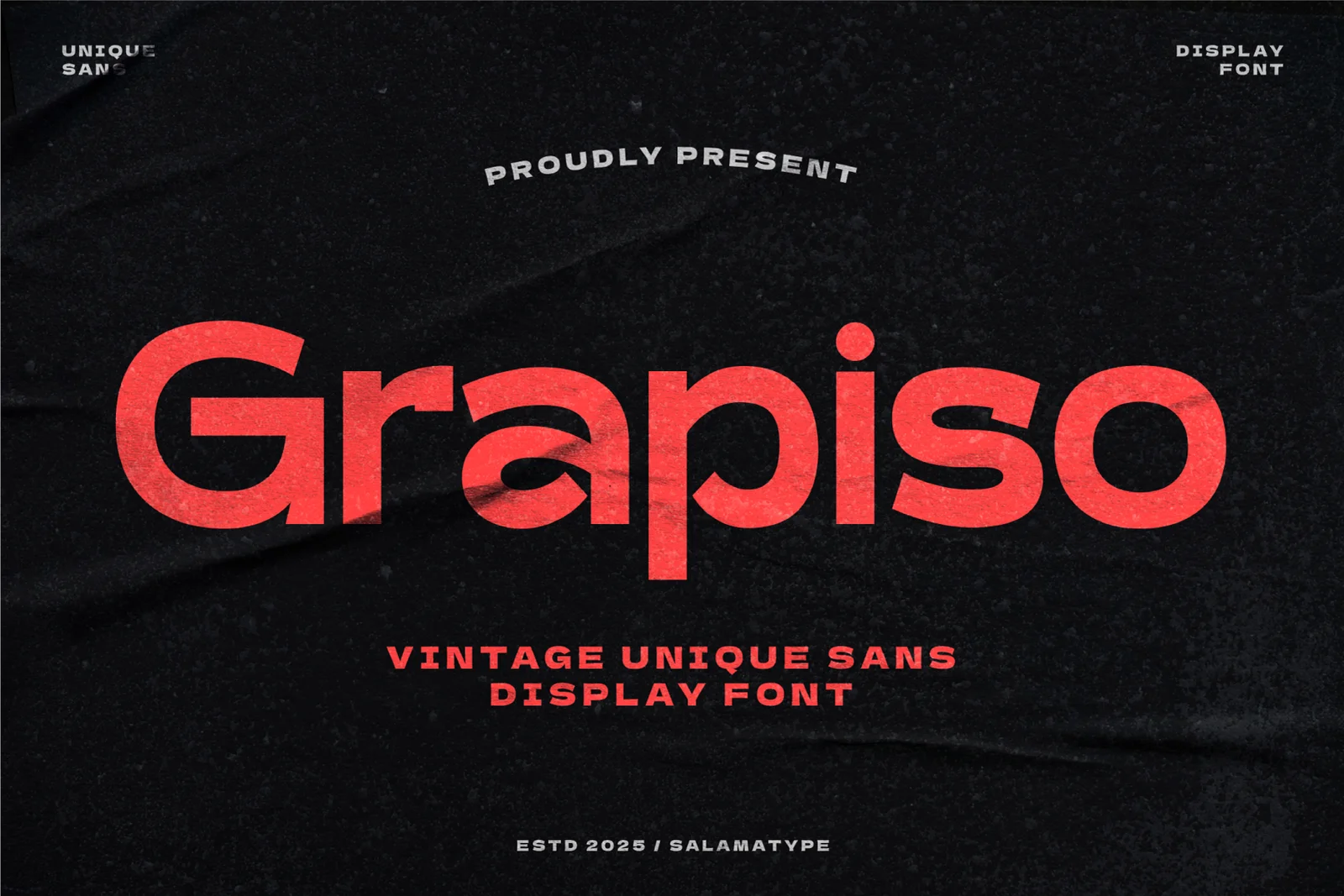
Grapiso is an unique sans serif typeface that has a clean and minimalistic look and is best suited for all the contemporary designs and styles. ‘Grapiso is the creations which have sharp lines and modern outlook so it can be perfect for those people who wants unique looking but professional.
These t-shirts are well suited for logos, websites, posters, branding and web design, social media advertisement and sports posters.
Grapiso Font Sans Serif